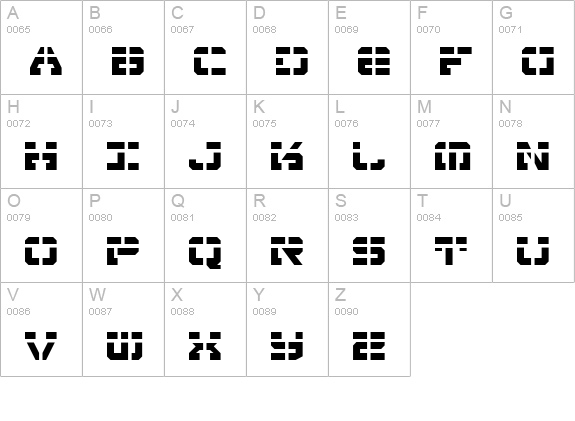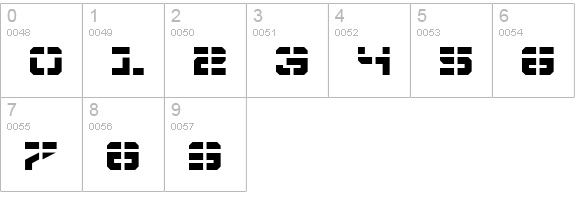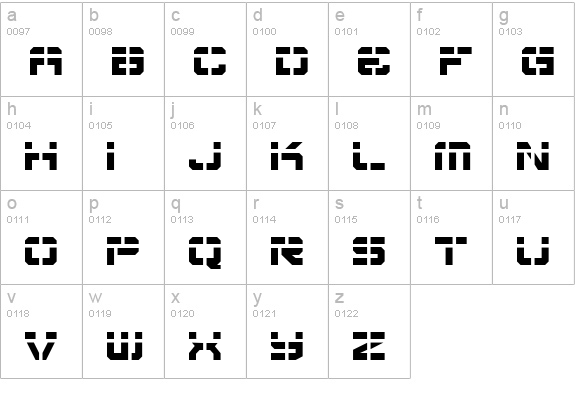
Vyper Laser Font Details
Vyper Laser font is a striking display typeface that exudes a futuristic and energetic vibe. Its sharp, angular letterforms give off a high-tech and dynamic appearance, making it perfect for projects that require a modern and edgy aesthetic. The sleek design of Vyper Laser font is sure to captivate and impress your audience, adding a touch of boldness to any creative endeavor. The best part? Vyper Laser font is completely free to download at FontsMarket.com. This means you can easily access this eye-catching typeface and use it in your designs without any cost. Whether you're working on a branding project, poster, website, or any other creative work, Vyper Laser font will add a touch of sophistication and style. Don't miss out on this fantastic opportunity to enhance your designs with the unique charm of Vyper Laser font. Download it now and let your creativity shine!